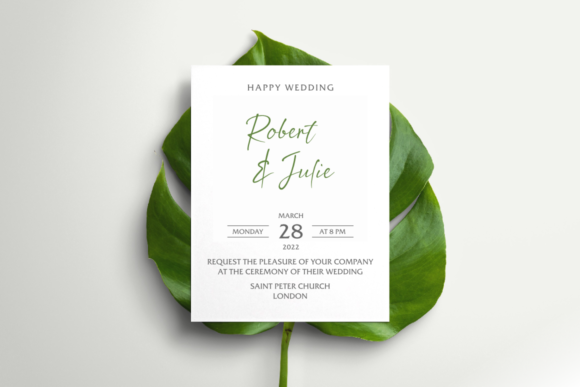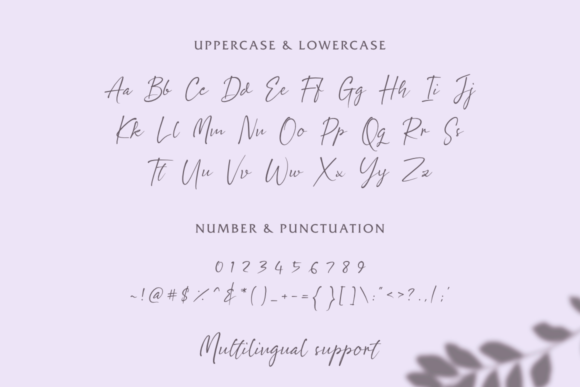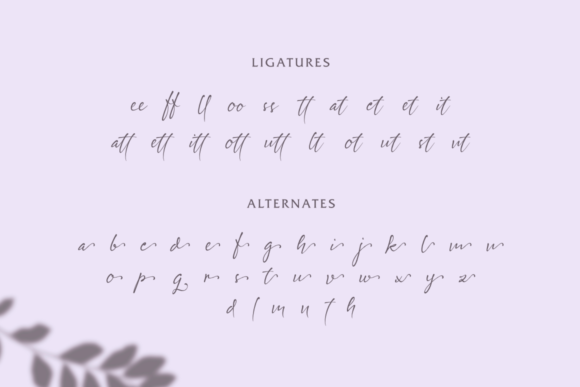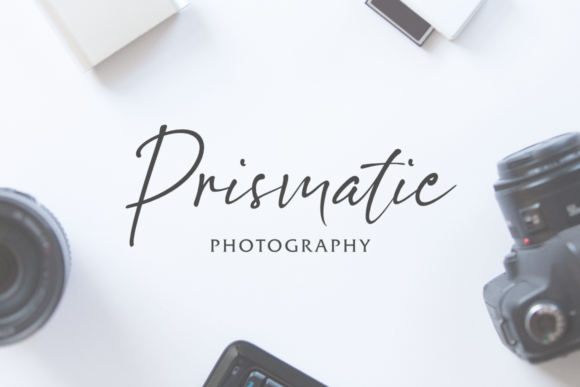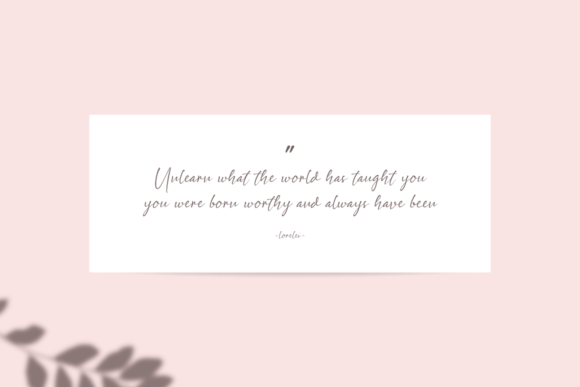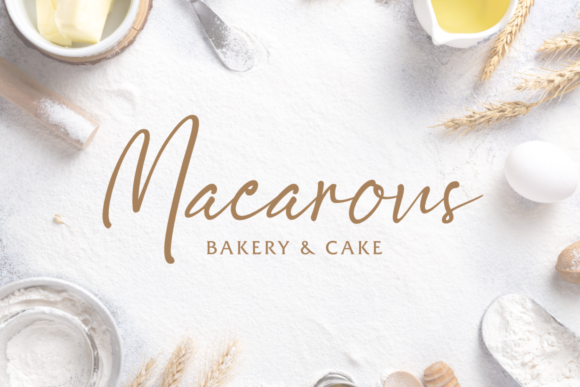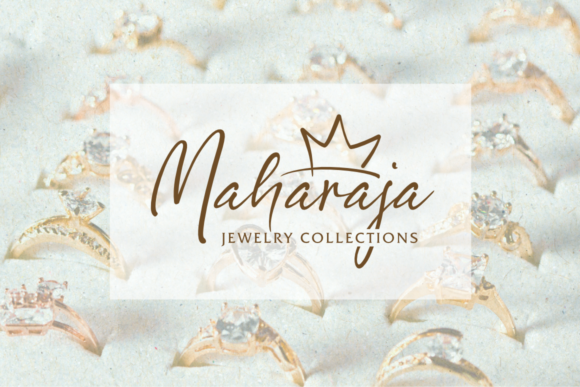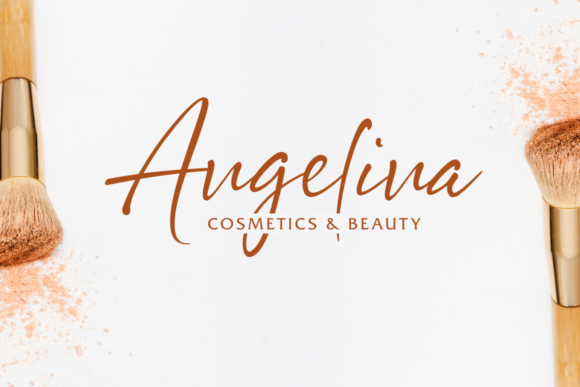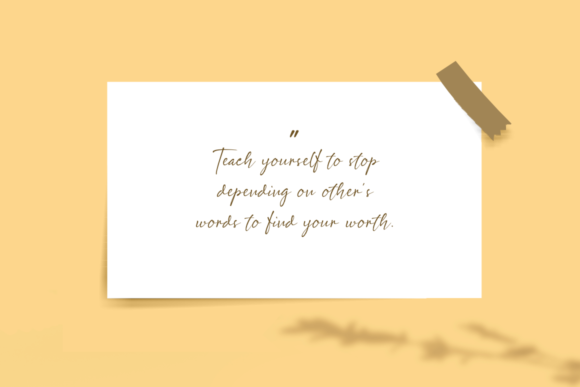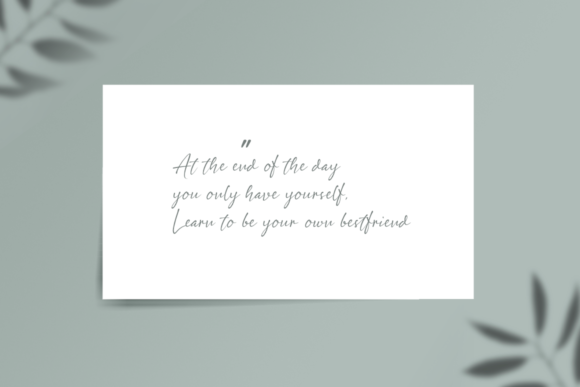
Safirah Moon Font
About Safirah Moon Font
Safirah Moon is a sweet, flowing and delicate script font. It can be utilized on various creations, both formal and informal. The only limit is ultimately your imagination.